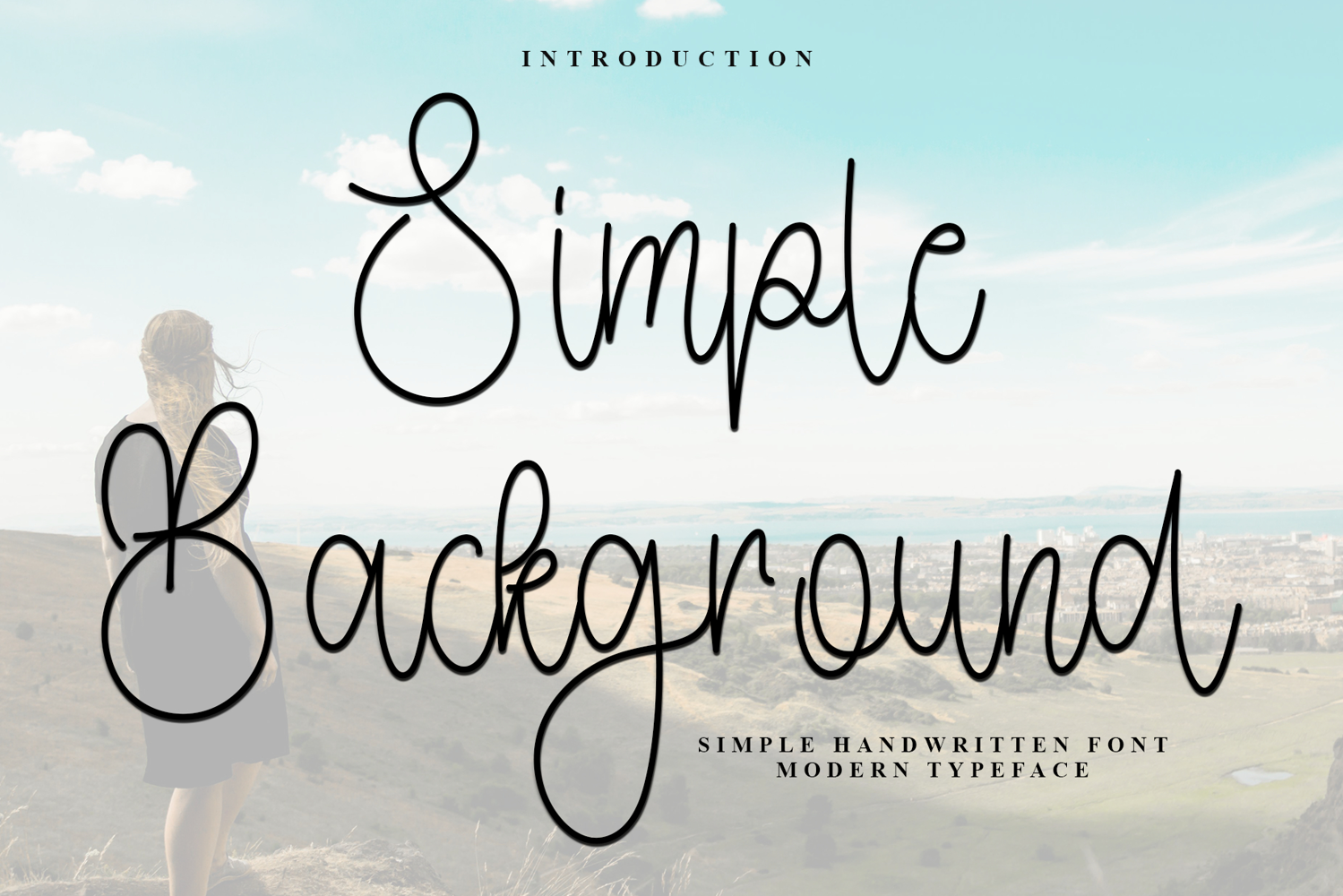
Simple Background
Simple Background is a beautiful and eye-catching font designed with a soft, unique touch. Its distinctive strokes give it a special character, making it meaningful and versatile for future use. With various characters, it’s perfect for design projects, crafts, and other creative works.